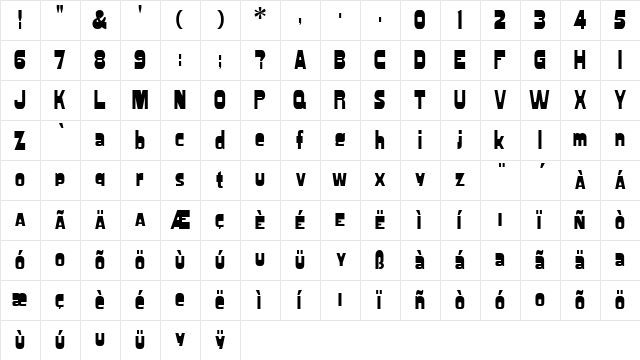
Blacktop Regular Font Preview
Blacktop Regular
Blacktop Regular Font Details
Design Context for Blacktop Typeface
Blacktop is a composed and adaptable typeface that performs quietly and consistently across a wide range of design contexts.
Pro Tip: Pair Blacktop with a font of contrasting weight or personality to build a more expressive typographic hierarchy.